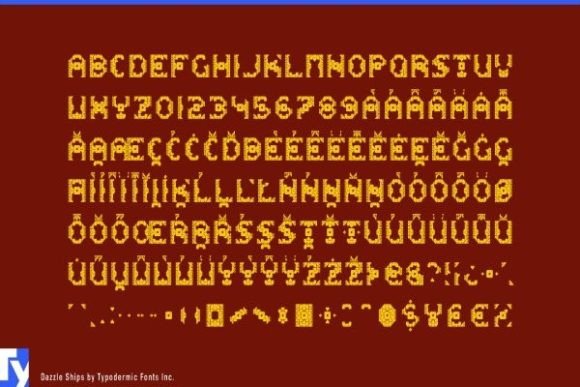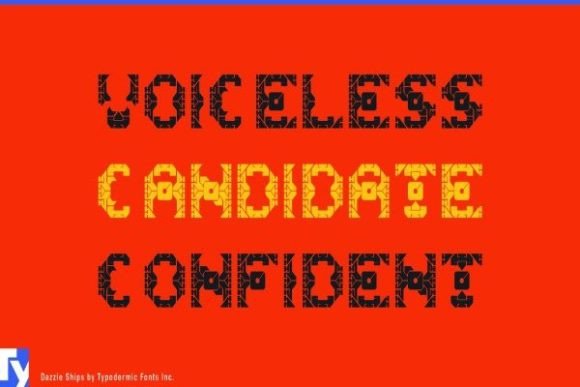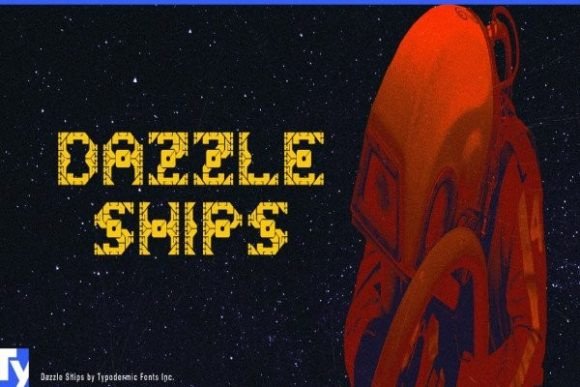
Dazzle Ships Font: Elevate Your Designs with a Futuristic Twist
In the realm of Science Fiction, fonts play a crucial role in bringing futuristic worlds to life. If you’re a designer, crafter, or simply a fan of the genre, you’re likely on the hunt for typography that captures the essence of innovation and adventure. Look no further than the Dazzle Ships Font, a segmented decorative font that adds a touch of otherworldly flair to any creative project.
Inspired by Science Fiction
Dazzle Ships Font draws inspiration from the visually striking and imaginative world of Science Fiction. Its unique design is reminiscent of futuristic ship hulls, sleek spacecraft, and advanced technologies. The font’s segmented style gives it a distinctive, high-tech appearance that’s sure to transport your audience to a galaxy far, far away.
Key Features of Dazzle Ships Font
- Segmented Decorative Style: Dazzle Ships Font boasts a one-of-a-kind segmented design that sets it apart from more traditional fonts.
- Science Fiction Inspiration: Perfect for projects that require a futuristic, out-of-this-world feel.
- Highly Versatile: Suitable for a wide range of creative projects, from logos and titles to posters and packaging.
Use Cases for Dazzle Ships Font
Dazzle Ships Font is an incredibly versatile typography solution that can elevate a variety of creative projects. Here are some ideas to get you started:
- Graphic Design: Add a touch of Science Fiction flair to your logos, brochures, and marketing materials.
- Branding: Create a memorable brand identity with a unique, futuristic font that sets you apart from the competition.
- Packaging: Make your product packaging stand out with a bold, eye-catching font that’s sure to grab attention.
- Poster Design: Create stunning posters and flyers that transport your audience to a futuristic world.
- Crafting and Scrapbooking: Add a touch of Science Fiction magic to your DIY projects, such as handmade cards, scrapbook pages, and journal entries.
- Unique Design: Dazzle Ships Font offers a fresh, distinctive look that’s sure to set your project apart.
- High-Quality: Crafted with attention to detail, this font is designed to deliver exceptional results in any design application.
If you’re looking to add a touch of Science Fiction flair to your creative projects, look no further than the Dazzle Ships Font. With its unique segmented design, high-tech aesthetic, and versatility, this font is the perfect choice for designers, crafters, and Science Fiction fans alike. So why wait? Download Dazzle Ships Font today and take your designs to new heights!